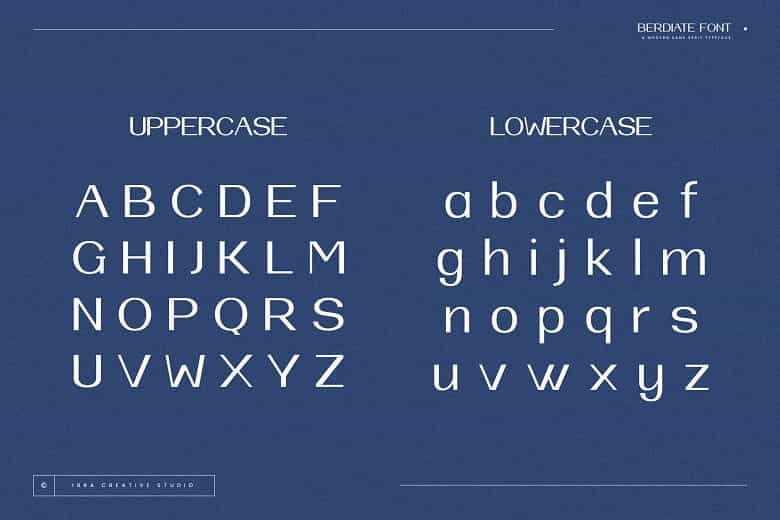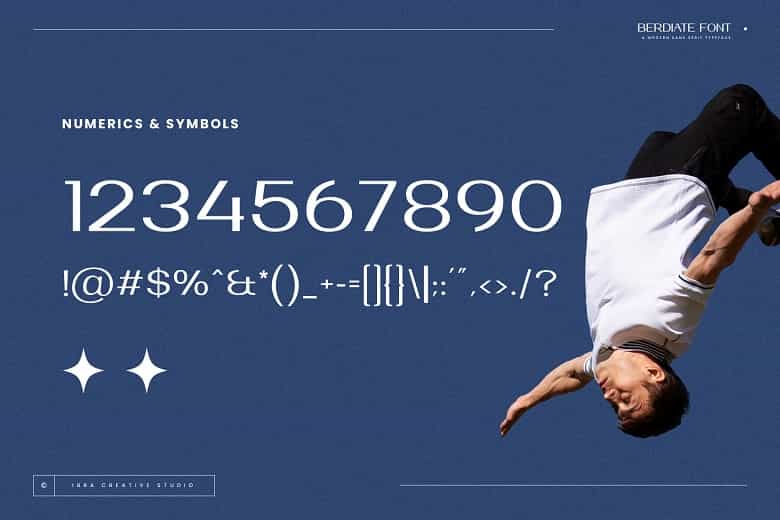
Berdiate is a new sans serif font, which combines the trends of the present day design with its clear shapes, geometrical forms and slight inclination to minimalism. The typography of the font is well refined to ensure the highest readability and functionality in different contexts.